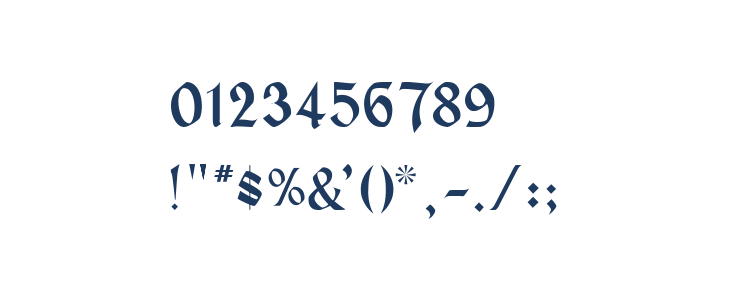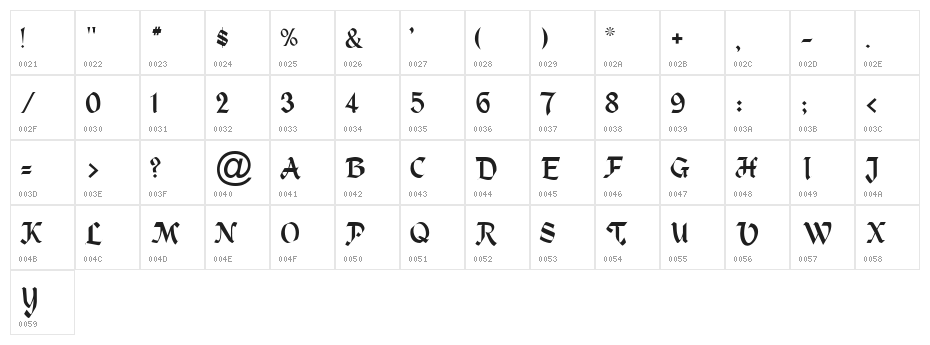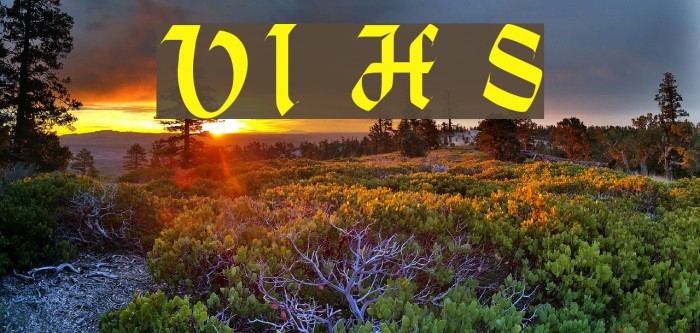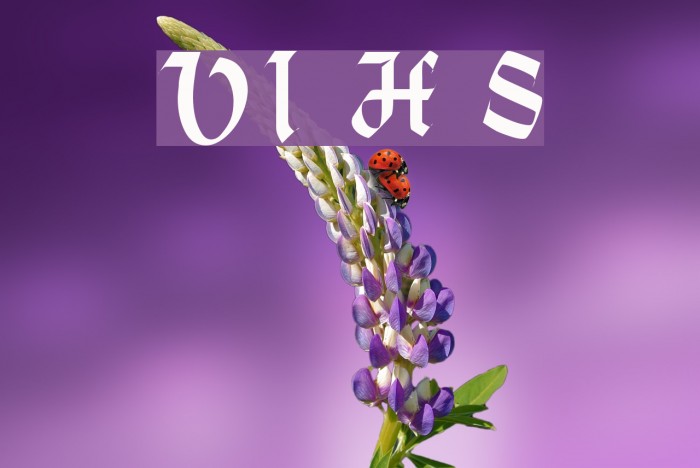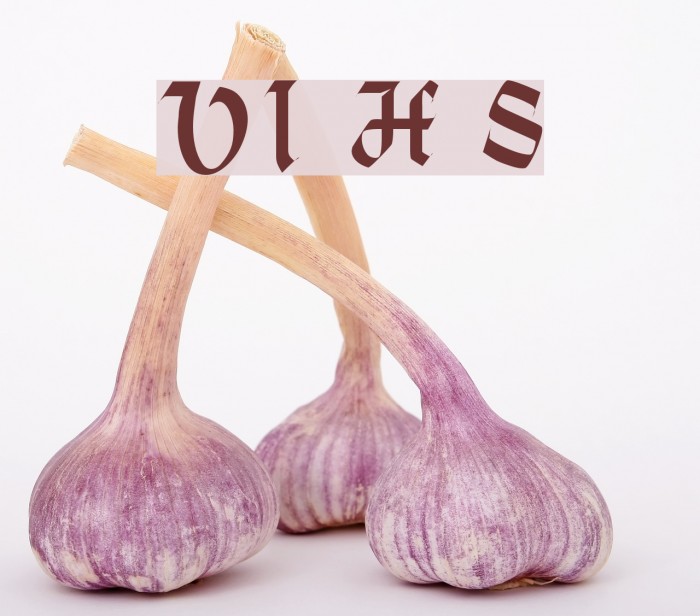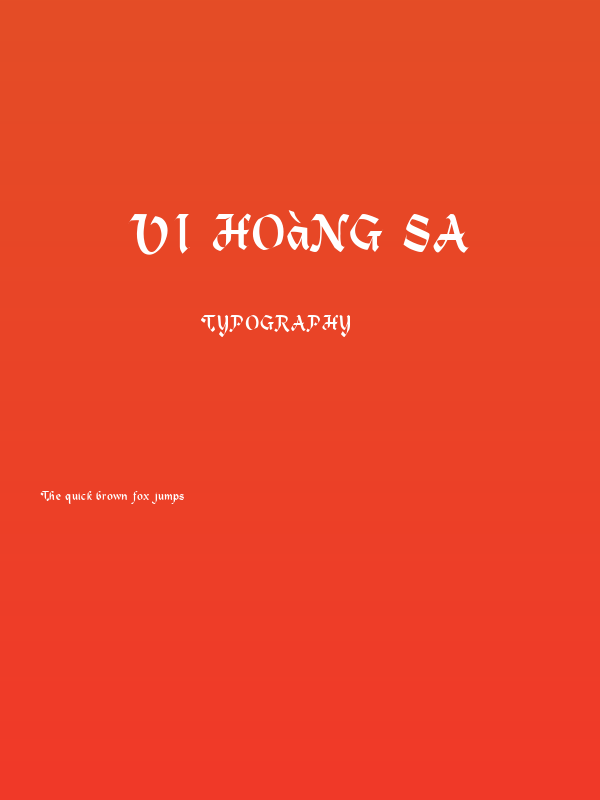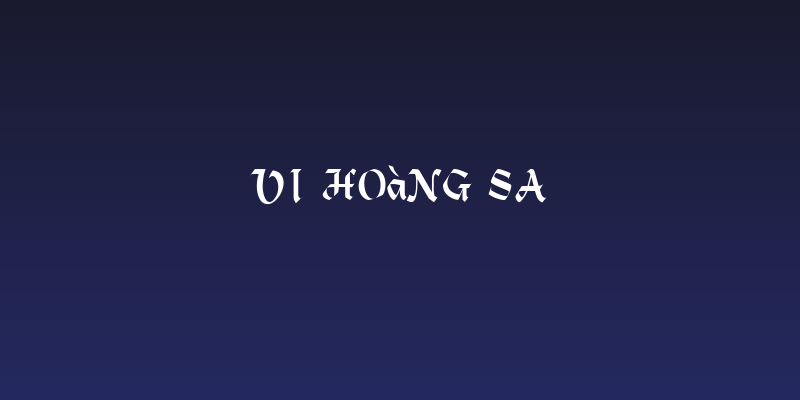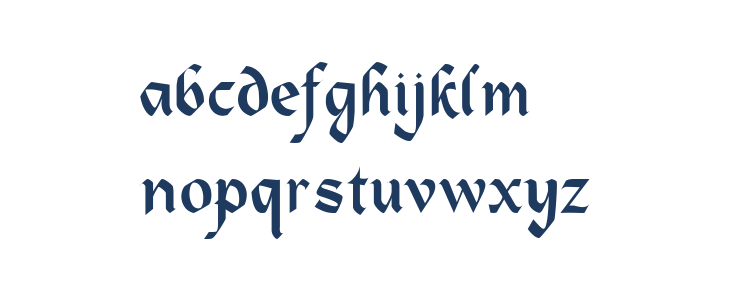
VI Hoàng Sa Font
VI Hoàng Sa Description
This font exhibits a traditional blackletter style, characterized by its bold, angular strokes and intricate design. The uppercase letters are ornate, with sharp edges and a medieval flair, while the lowercase letters maintain a consistent style, offering a cohesive look. The numbers and special characters are equally detailed, ensuring a uniform appearance across all glyphs. This font is reminiscent of historical scripts used in manuscripts and formal documents, providing a sense of antiquity and elegance. Its distinct style makes it suitable for projects that require a touch of classic sophistication.
| Use Case | Headlines, Logos, Decorative text |
| Proposed Projects | Ideal for historical documents, certificates, invitations, and branding that requires a classic or medieval touch. |